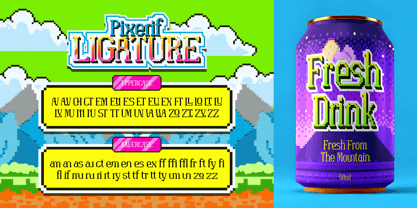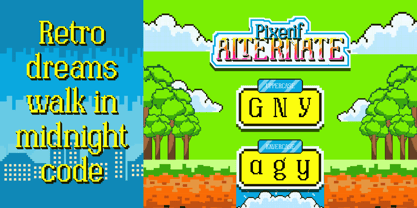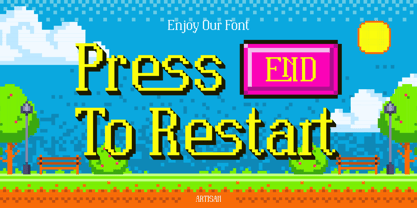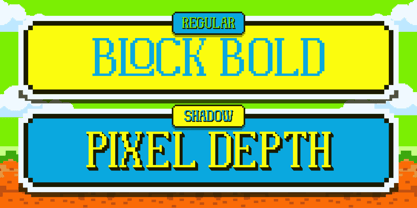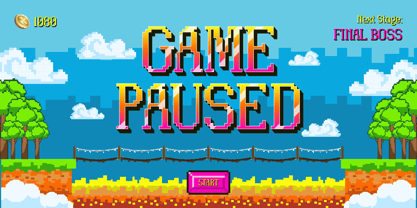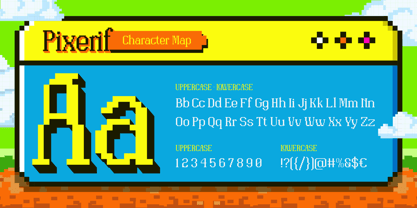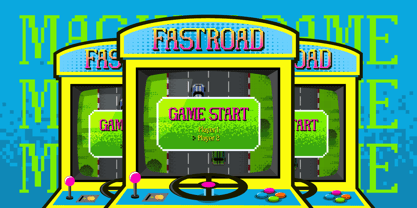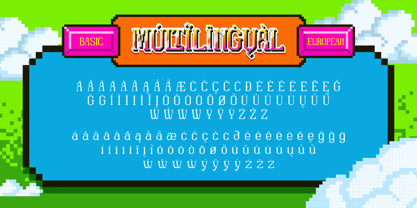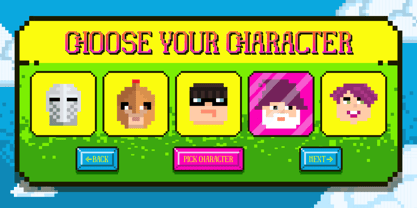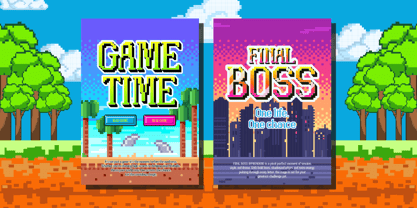
Pixerif
The Pixerif Font Family was designed by Meidy Meichico and published by Artisan Themes. Pixerif contains 2 styles and family package options. More about this family
I'm so happy to show you my very first font called Pixerif. It's clearly inspired by the iconic 8bit games fonts; bright color, square pixel, clear line and fun.
Came in 2 style, Regular Style as a basic style to bring clear massage and Shadow Style to make the text standout as logo. Really easy to use or can be fun with combination of both style.